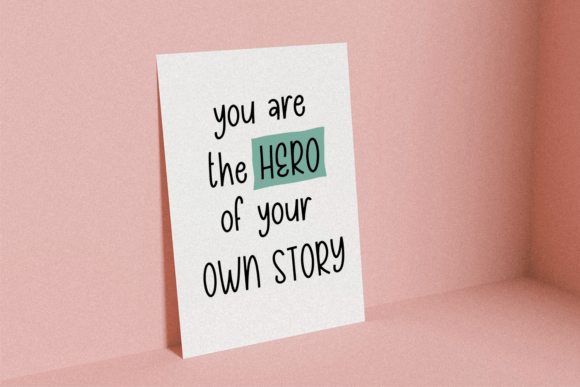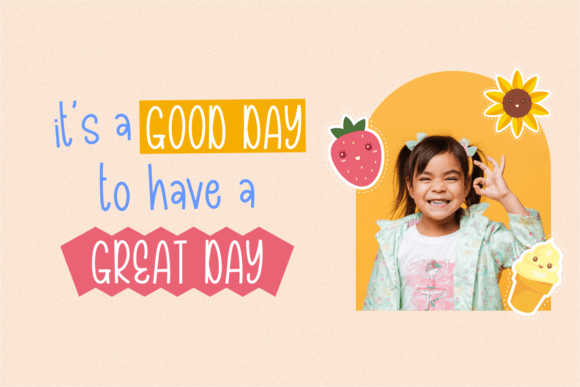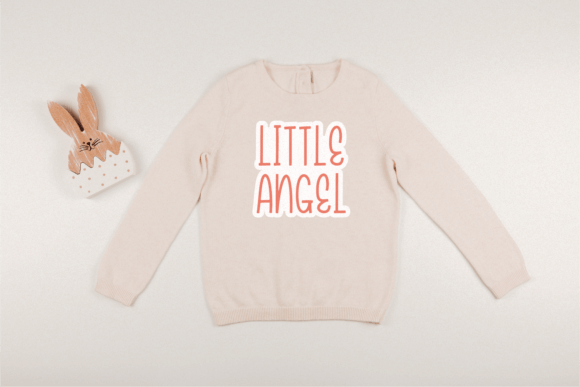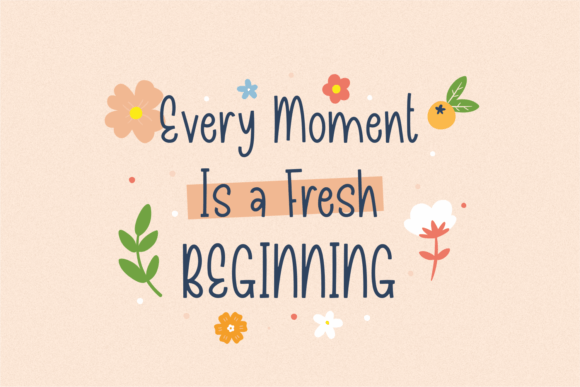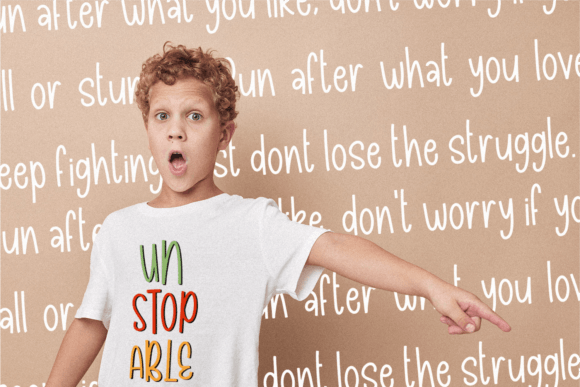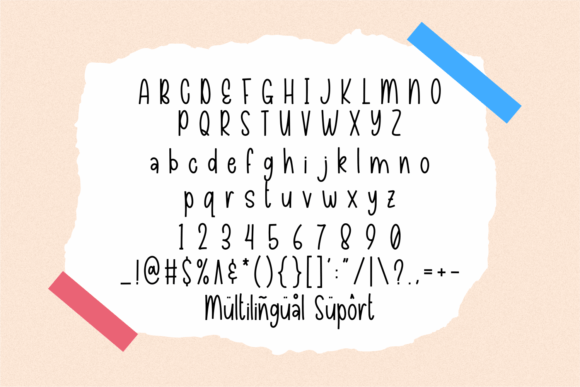
Ganyo Font: Elevate Your Designs with a Cute Handwritten Script
Are you looking for a font that can add a touch of classic charm, farmhouse vibes, boho chic, and feminine elegance to your designs? Look no further than the Ganyo Font! This beautiful handwritten script font is perfect for a wide range of projects, from events and wedding planning to fashion, apparel, and more.
What is Ganyo Font?
Ganyo is a carefully crafted handwritten script font that exudes a sense of warmth and personality. Its unique, flowing strokes and delicate letterforms make it an excellent choice for designers and crafters who want to add a personal touch to their work. Whether you’re creating wedding invitations, fashion branding, or social media graphics, Ganyo Font is sure to make your designs stand out.
One of the best things about Ganyo Font is its versatility. It’s a great font for:
• Events: Use Ganyo Font to create beautiful event invitations, posters, and flyers that set the tone for a memorable occasion.
• Wedding projects: Add a touch of romance and elegance to your wedding designs, from invitations to save-the-date cards and more.
• Fashion and apparel: Ganyo Font is perfect for fashion branding, clothing labels, and accessories like scarves, hats, and bags.
• Signatures: Use Ganyo Font to create stunning signatures for your emails, documents, and more.
• Album covers: Give your music or photo albums a unique and eye-catching title with Ganyo Font.
• Logos and branding: Create a memorable logo or brand identity with Ganyo Font’s distinctive script style.
• Magazines and publications: Use Ganyo Font to add a touch of sophistication and elegance to your magazine or newspaper designs.
• Social media posts: Stand out on social media with eye-catching graphics and posts featuring Ganyo Font.
• Advertisements: Use Ganyo Font to create compelling ad copy that grabs attention and leaves a lasting impression.
Why Choose Ganyo Font?
So, why should you choose Ganyo Font for your next project? Here are just a few reasons:
• Unique and eye-catching: Ganyo Font’s handwritten script style is sure to grab attention and make your designs stand out.
• Versatile: Ganyo Font is suitable for a wide range of projects, from events and wedding planning to fashion, apparel, and more.
• Elegant and sophisticated: Ganyo Font’s delicate letterforms and flowing strokes add a touch of elegance and sophistication to any design.
• Easy to read: Despite its ornate style, Ganyo Font is surprisingly easy to read, making it perfect for body text and headlines.
Tips for Using Ganyo Font
To get the most out of Ganyo Font, here are a few tips to keep in mind:
• Experiment with different sizes: Ganyo Font looks great in a variety of sizes, from large headlines to smaller body text.
• Pair with complementary fonts: Try pairing Ganyo Font with complementary fonts, such as sans-serif or serif fonts, to create visual interest.
• Use it consistently: To create a cohesive brand identity, use Ganyo Font consistently across all your designs.
In conclusion, Ganyo Font is a beautiful handwritten script font that’s perfect for designers and crafters who want to add a touch of classic charm, farmhouse vibes, boho chic, and feminine elegance to their designs. With its versatility, unique style, and ease of use, Ganyo Font is sure to become a staple in your design toolkit. So why wait? Download Ganyo Font today and start elevating your designs to the next level!